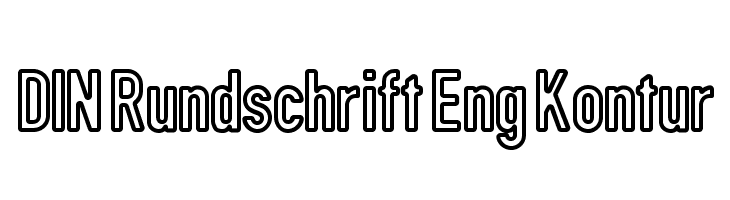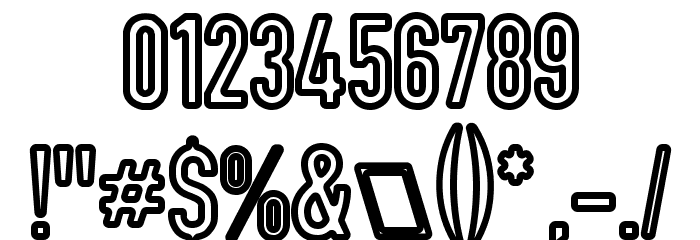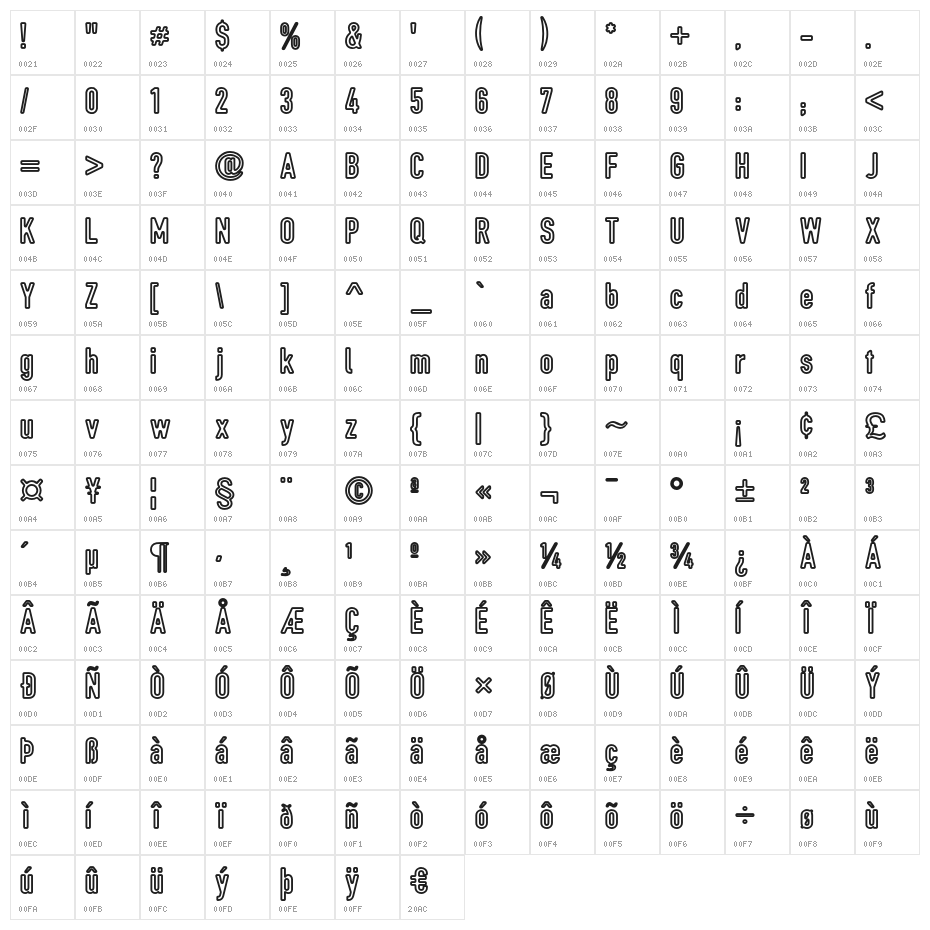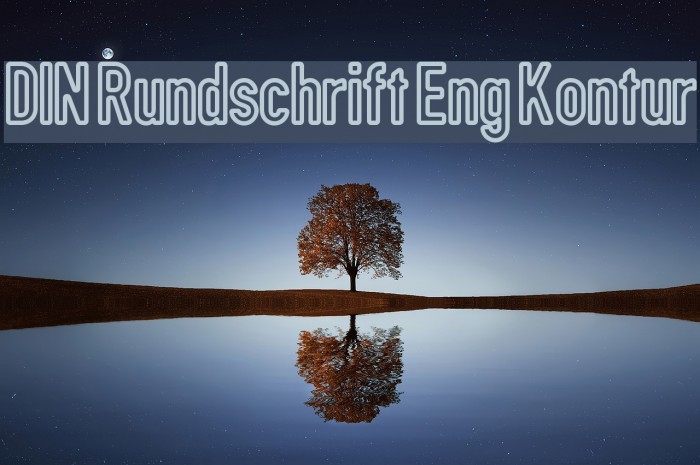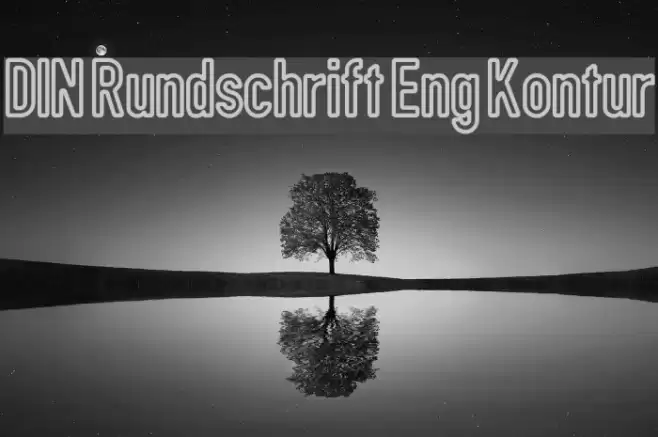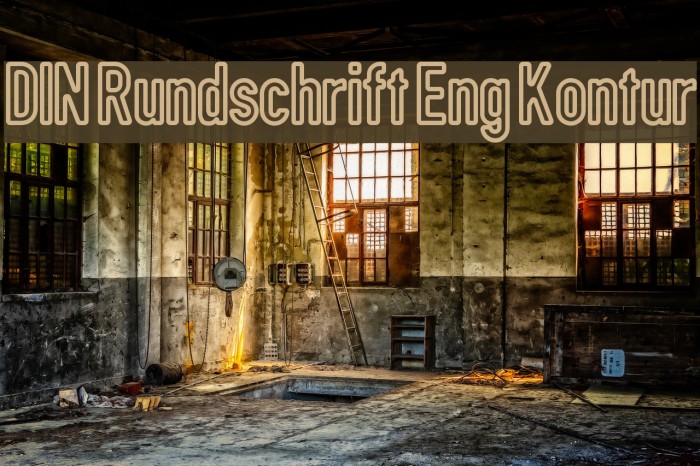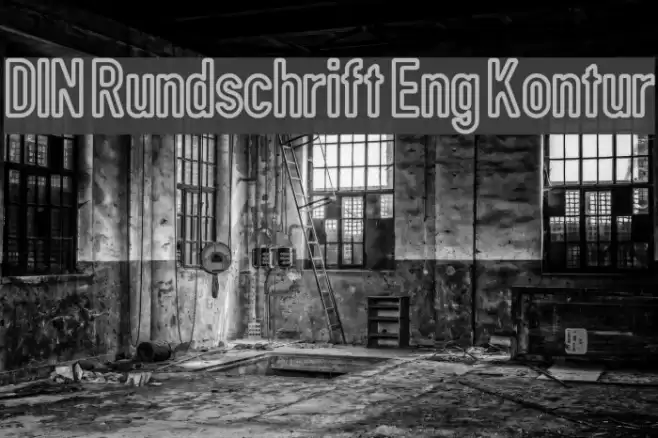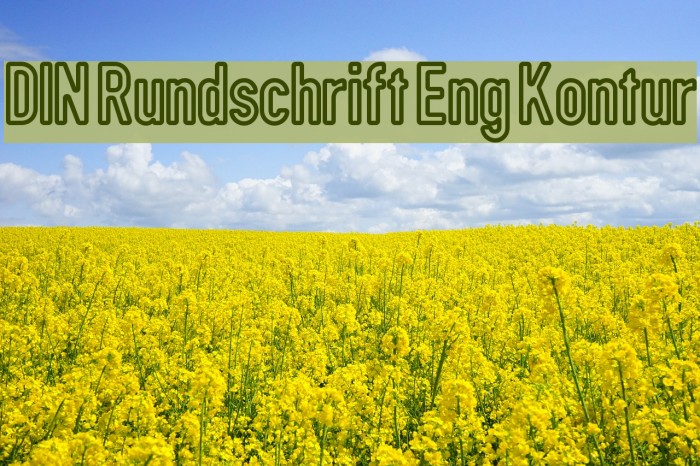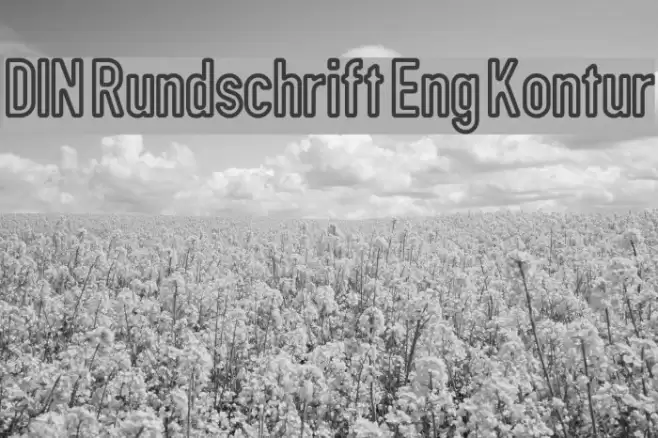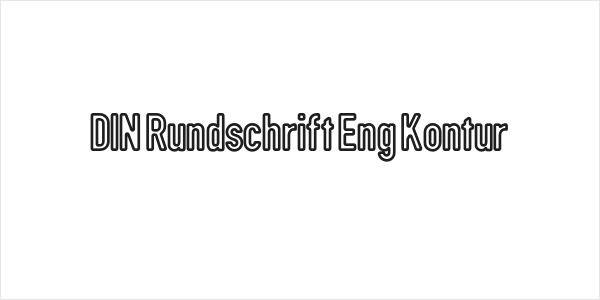
DIN Rundschrift Eng Kontur Font
DIN Rundschrift Eng Kontur Description
This font features a bold, outlined style with a modern and clean aesthetic. The characters are uppercase and lowercase letters, numbers, and a variety of special symbols. The strokes are consistent in width, creating a uniform appearance. The design is geometric with rounded edges, giving it a friendly and approachable look. The spacing between characters is normal, ensuring readability while maintaining a compact form. This font is suitable for projects that require a contemporary and eye-catching display, such as posters, signage, and branding materials.
| Use Case | Headlines, Logos, Signage |
| Proposed Projects | Ideal for posters, signage, branding, and any project needing a modern, eye-catching display. |